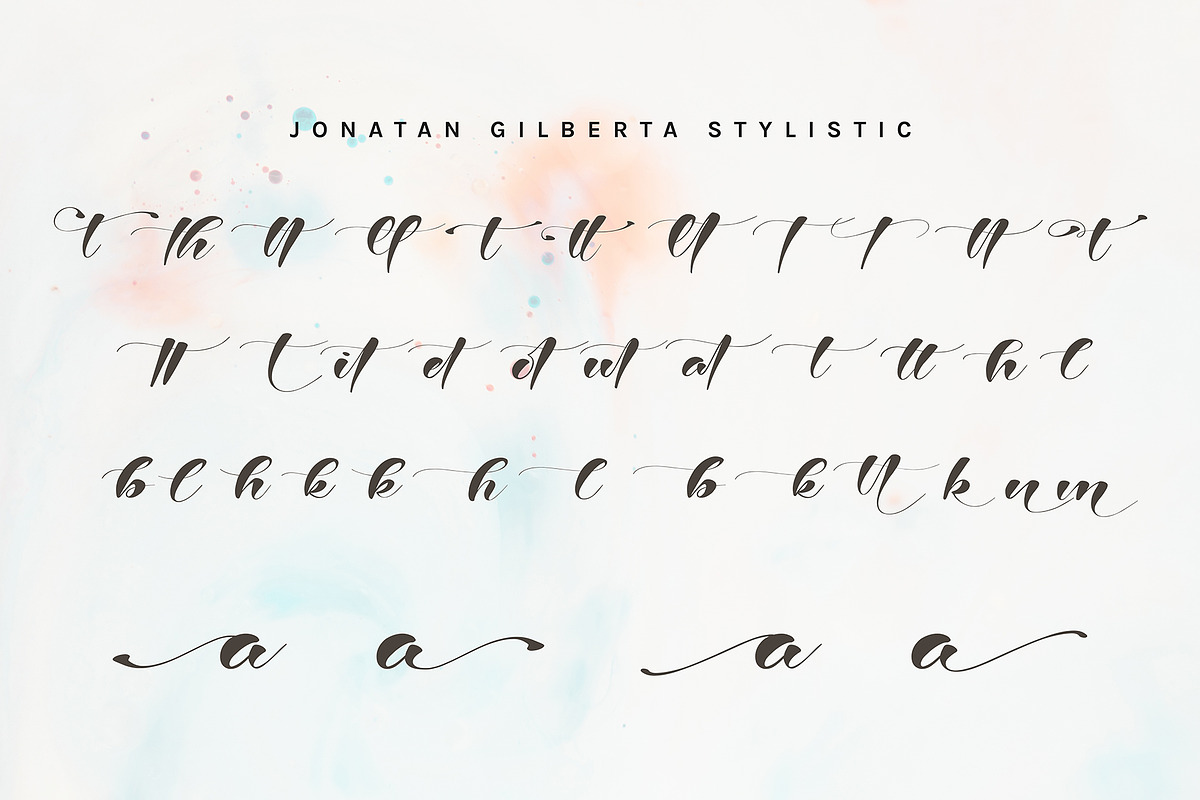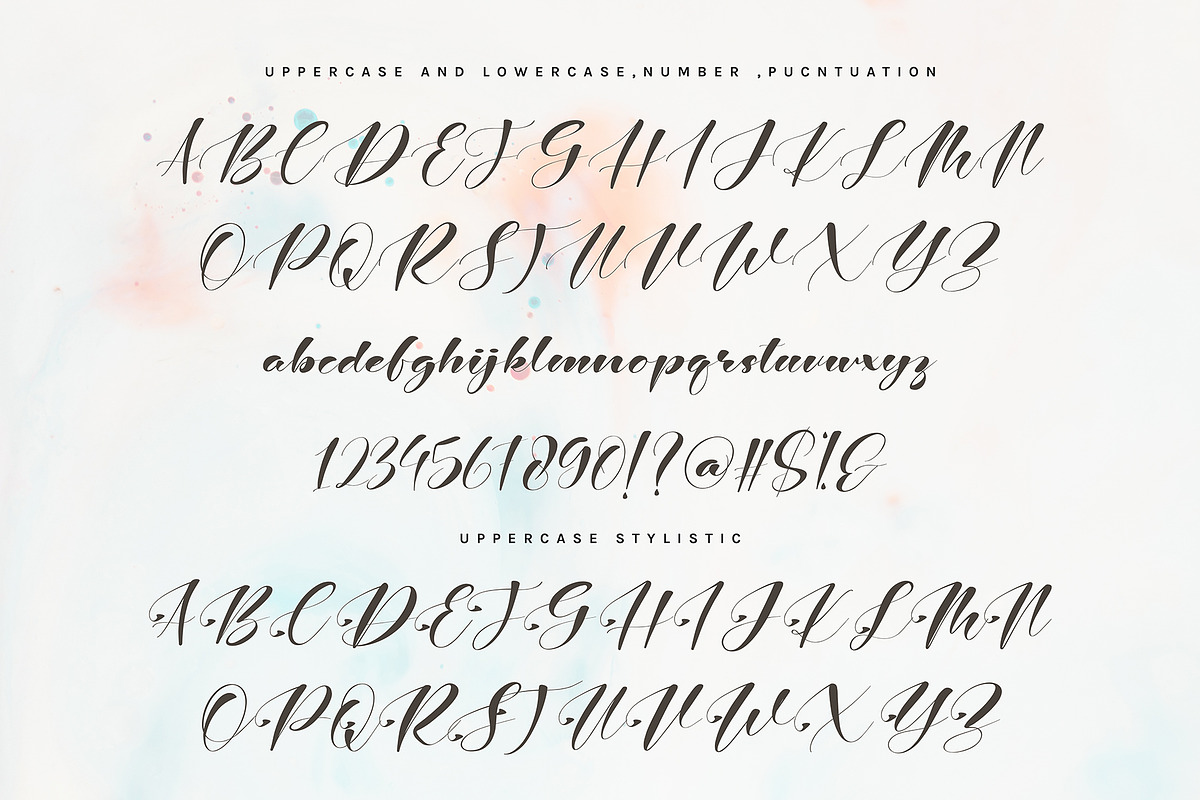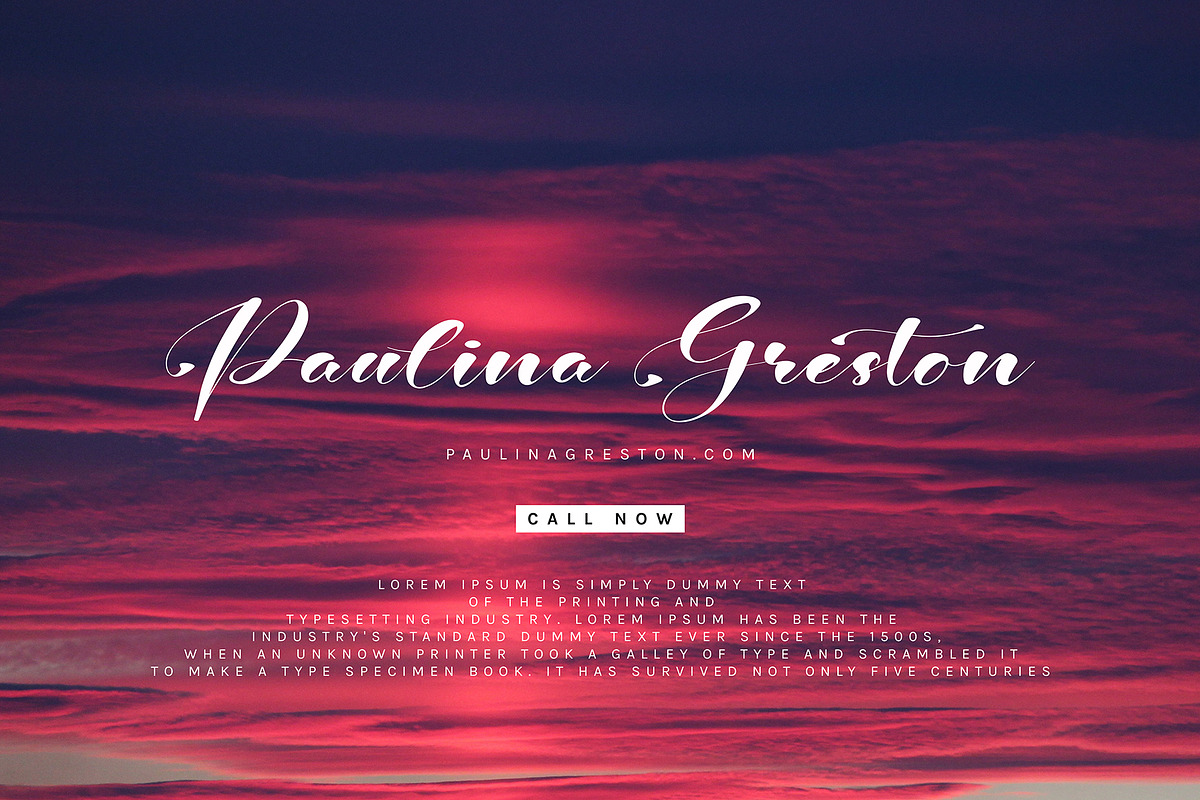
Jonatan Gilberta
Jonatan Gilberta script font font with new style, this font will perfect for many different project ex: quotes, logo, blog header, poster, banding, fashion, apparel, letter, invitation, stationery, etc...
Foreign languages support: ÀÁÂÃÄÅÆÇÈÉÊËÌÍÎÏÐÑÒÓÔÕÖØÙÚÛÜÝßàáâãäåæçèéêëìíîïðñòóôõöøùúûüýÿ